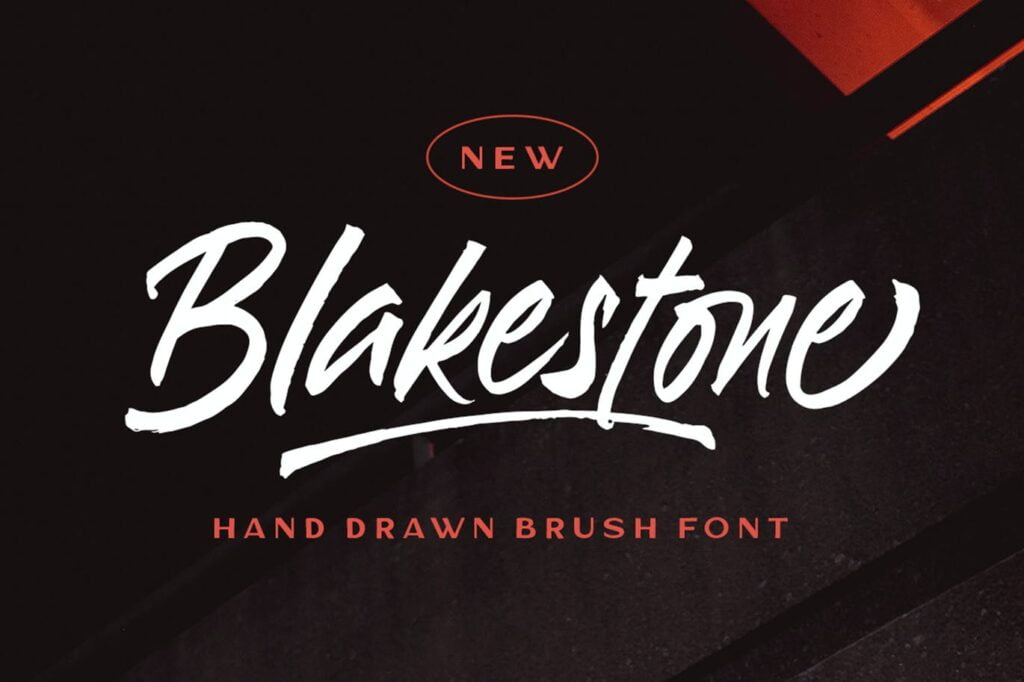
Blakestone Font
Blakestone is an adorable quirky handwritten font. It will add an incredibly joyful touch to your designs. Fall in love with its playful style and use it to create beautiful stationary art, eye-catching social media posts, and much more!
Blakestone Script Brush Font